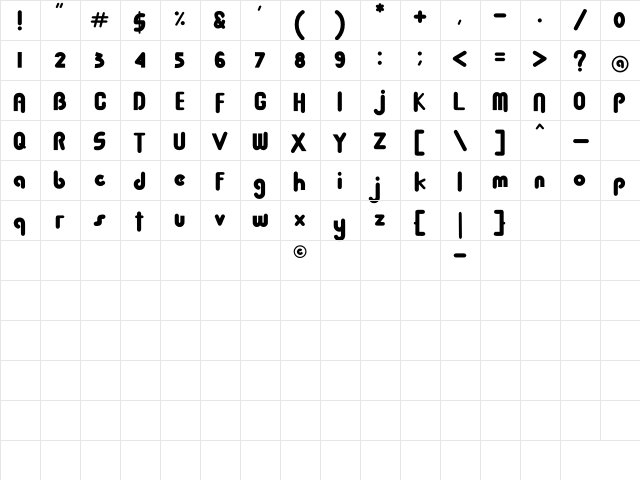
Baby Dollar Regular
| Designer | hindro cholis |
Design Context for Baby Dollar Typeface
Baby Dollar takes a measured approach to typography — its balanced proportions and neutral character make it a reliable workhorse for both digital and print work.